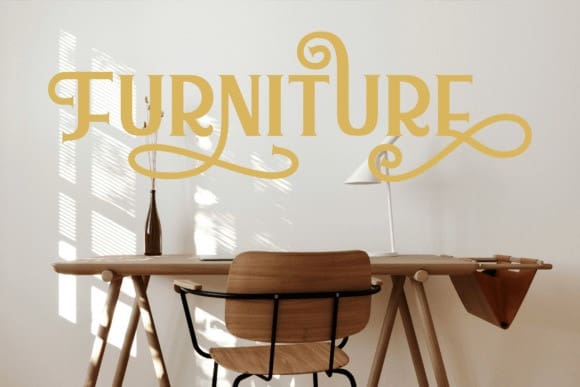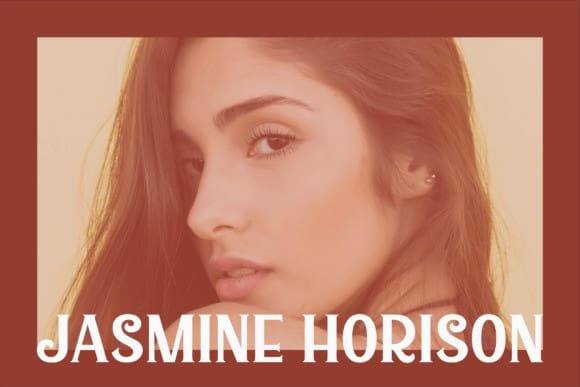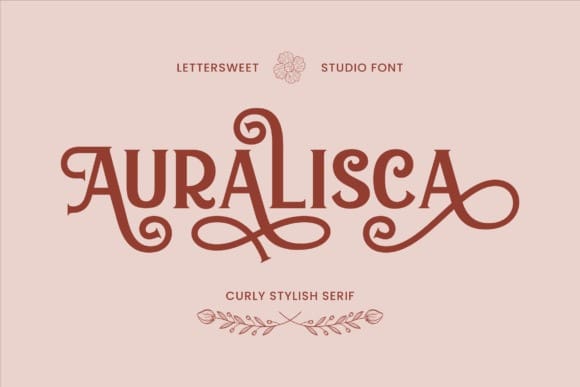
Auralisca Font
Auralisca Font is an elegant and stylish serif font, crafted with delicate swirls and captivating curves. Each letter radiates a luxurious charm, making it perfect for high-class design needs such as logos, invitations, packaging, or other creative projects. The combination of uppercase and lowercase letters offers flexibility to create stunning layouts, while the additional ornaments add an artistic touch to your designs.